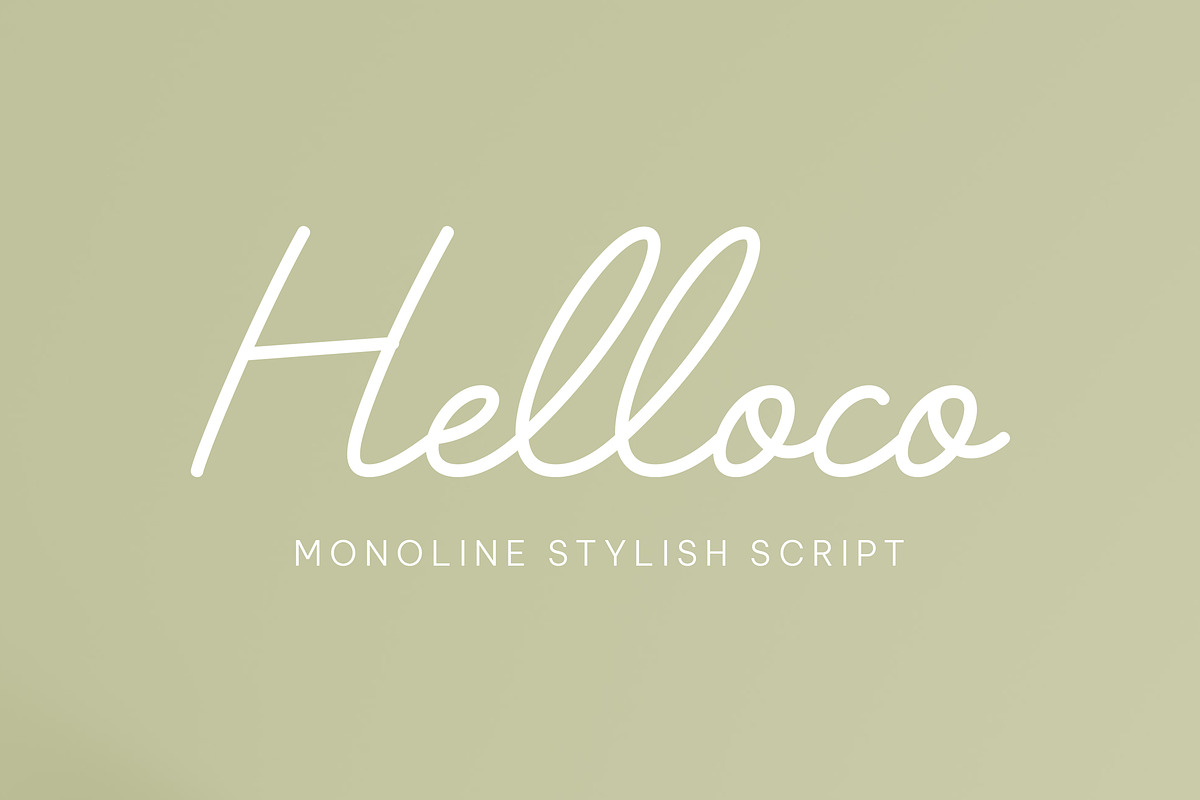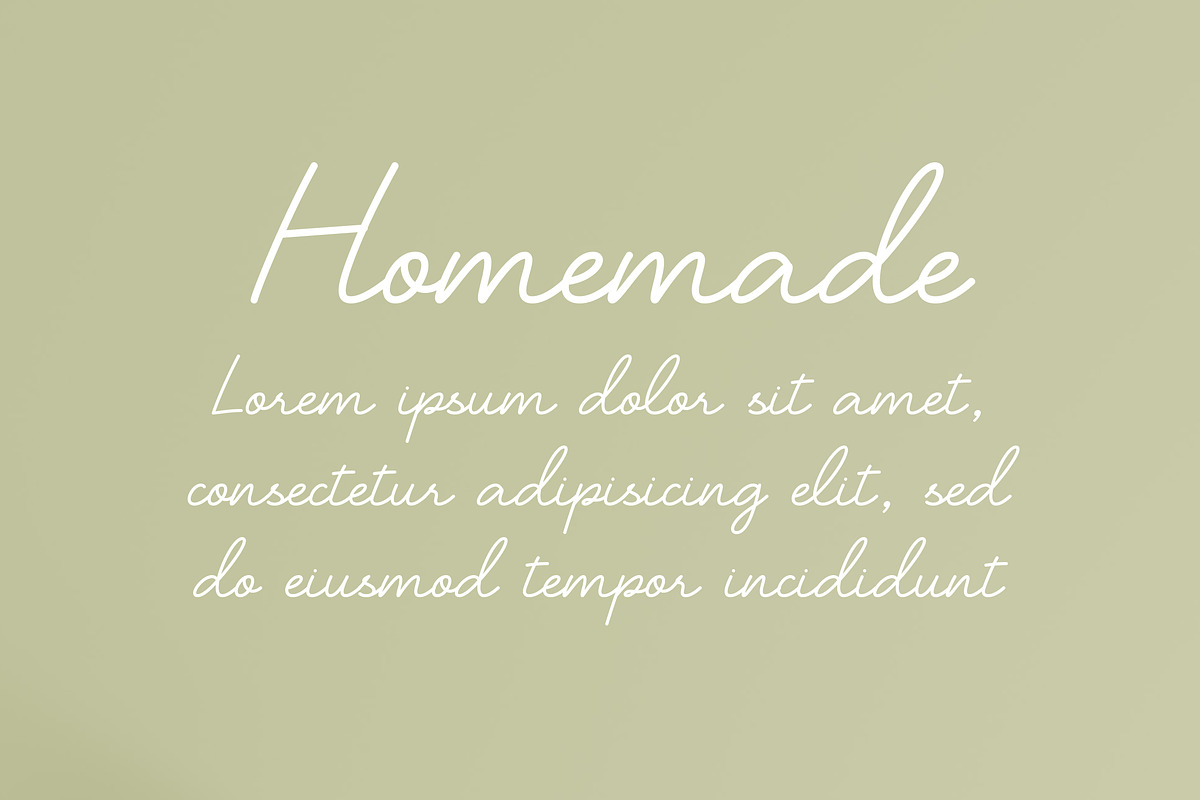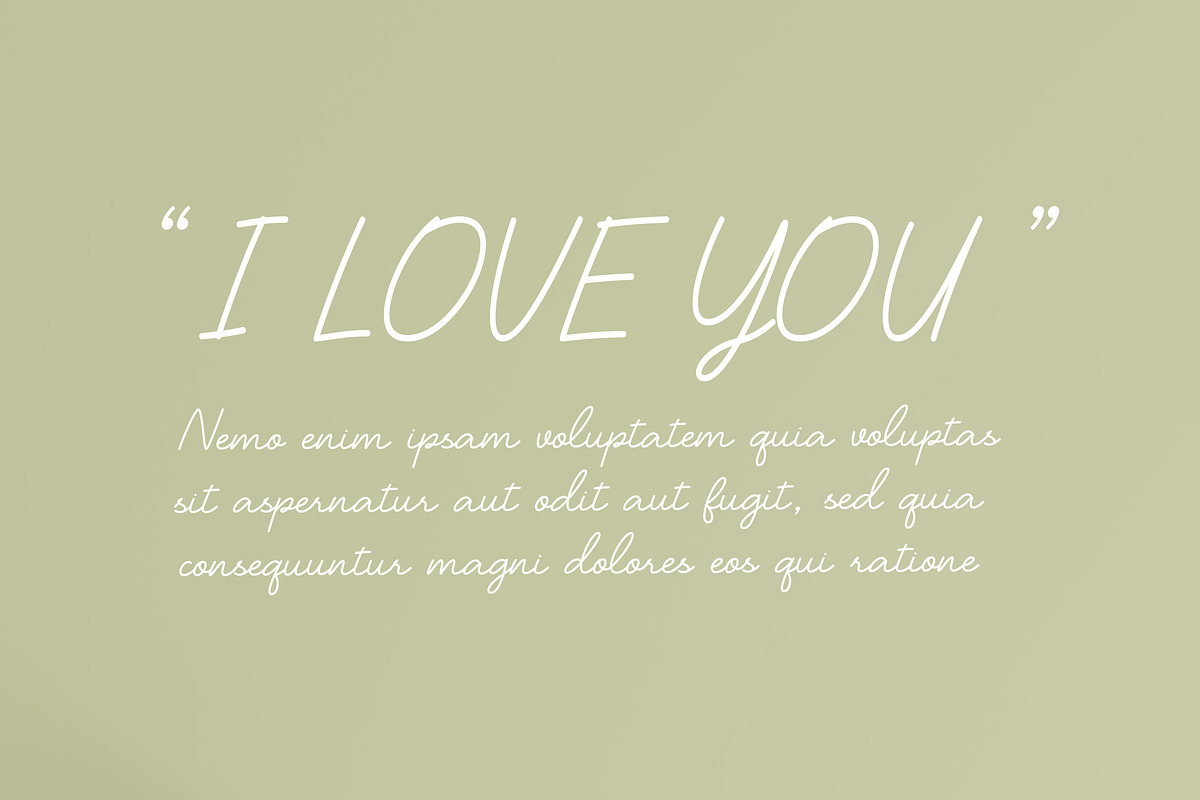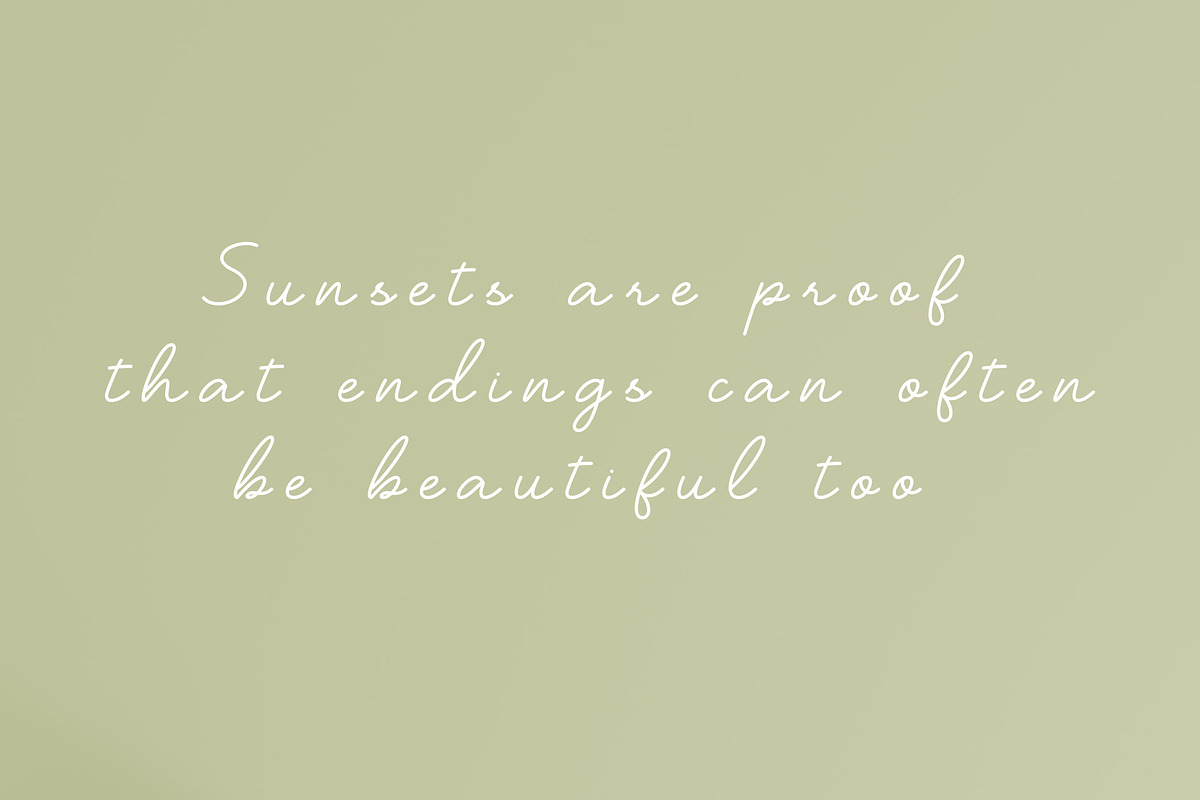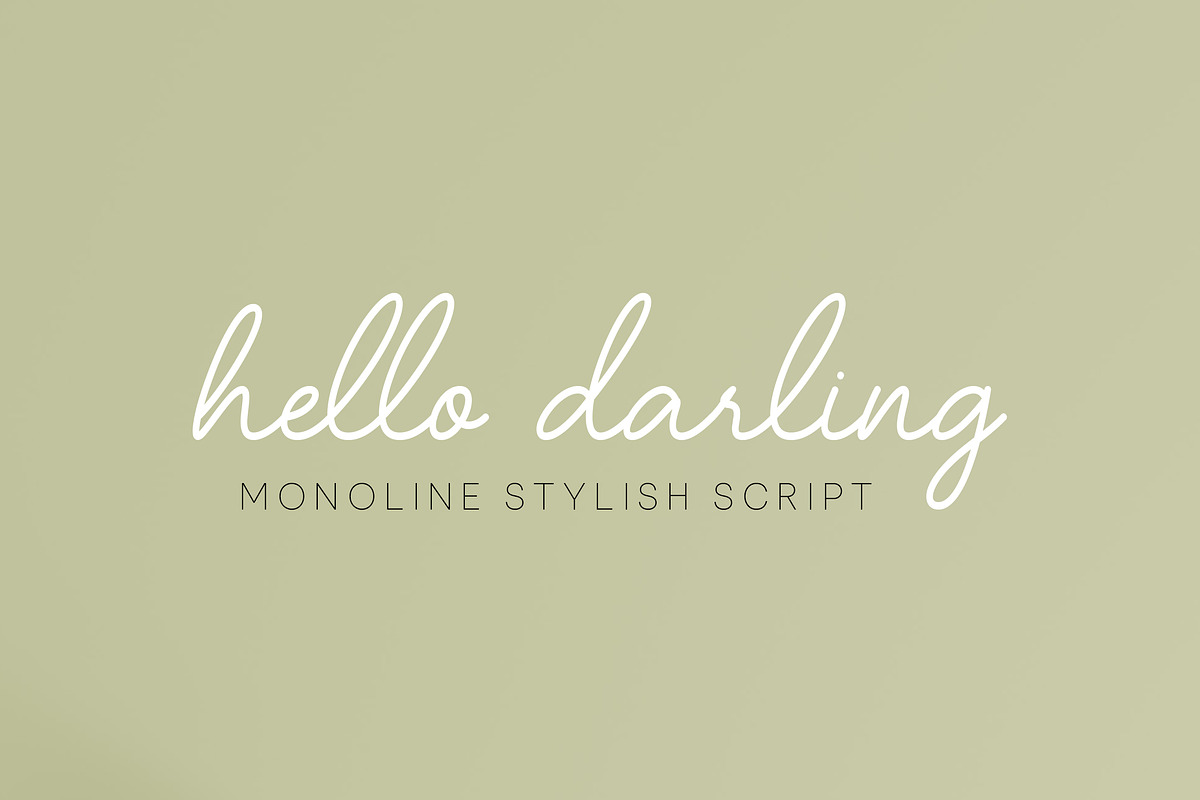
Helloco - Monoline stylish script
Introducing Helloco – the epitome of simplicity and versatility in the world of fonts. This font is characterized by thin italic characters and continuous lines. You can use it to create birthday cards, wedding invitations, beautiful art, social media posts, and more. This monoline, Helloco font is designed for those who appreciate the beauty of clean lines.